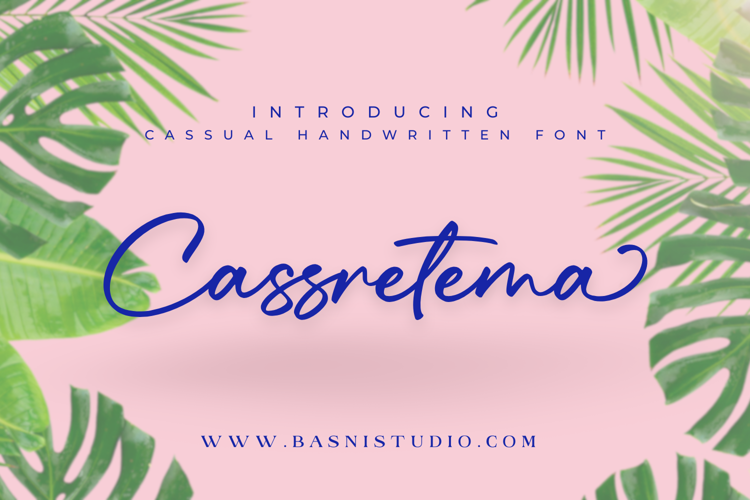
Cassretema Font
INTRODUCING Cassretema a Casual Handwritten Font
Cassretema is a casual handwritten font that flows effortlessly, just like a love letter written by hand.